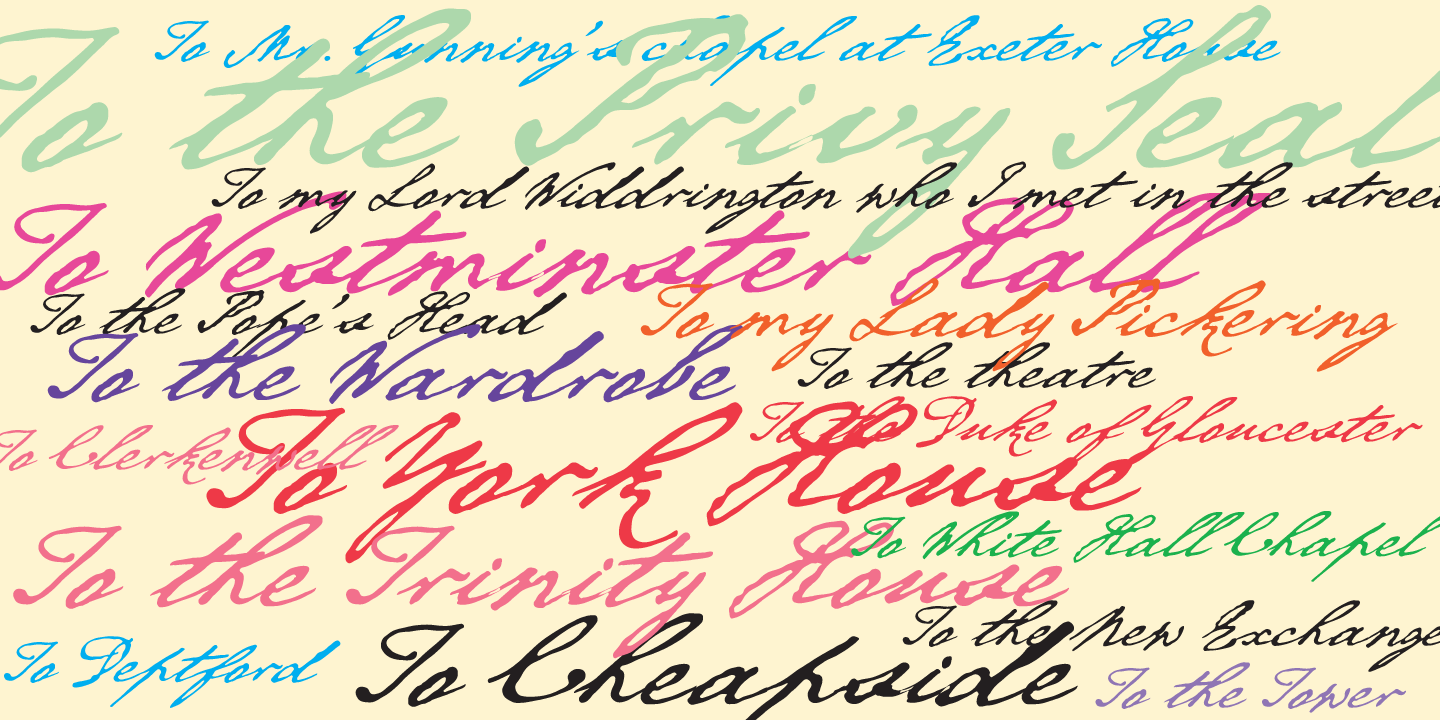
Designed by Ted Staunton, P22 Chatham is a historical and script font published by International House of Fonts.
Chatham is part of the “Staunton Script Family” of fonts designed by Ted Staunton for his historic novel centered around a family bible and the handwritten annotation through 7 generations. The Chatham font is overtly crooked and has an extreme right-leaning slant—perhaps we should call it “Cheney”.